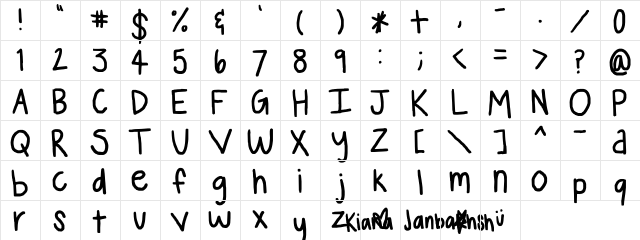
janbakhsh Regular
Design Context for janbakhsh Typeface
janbakhsh is a composed and adaptable typeface that performs quietly and consistently across a wide range of design contexts.